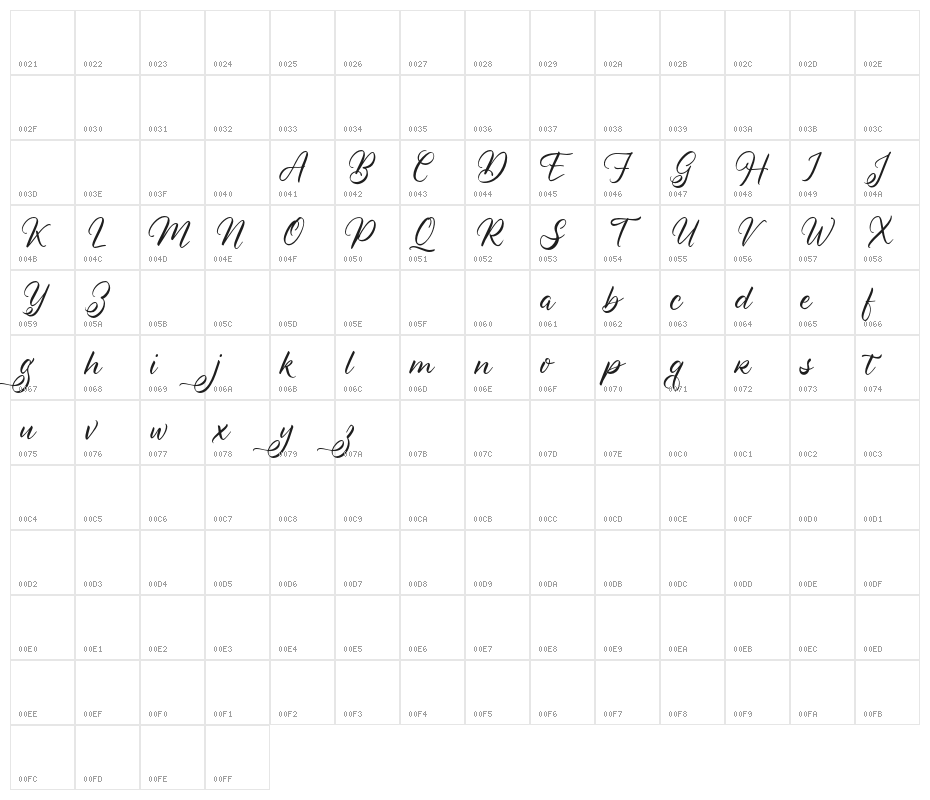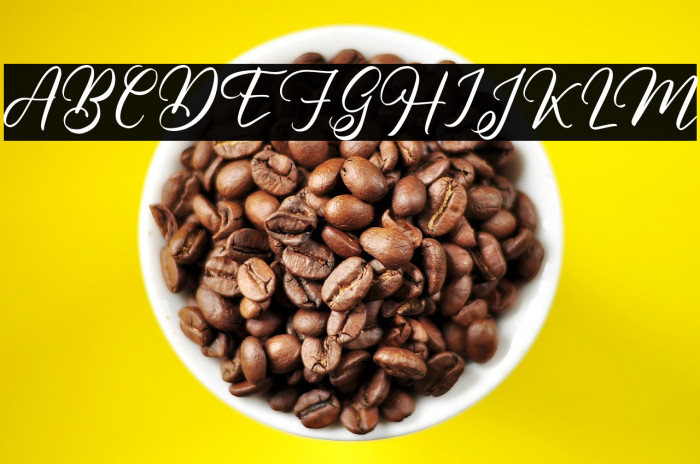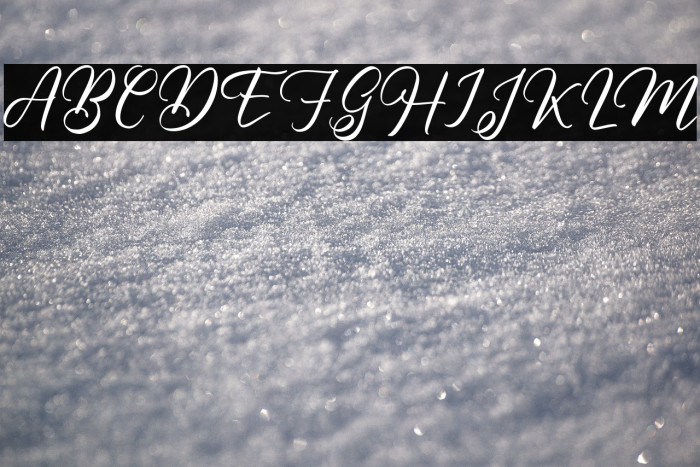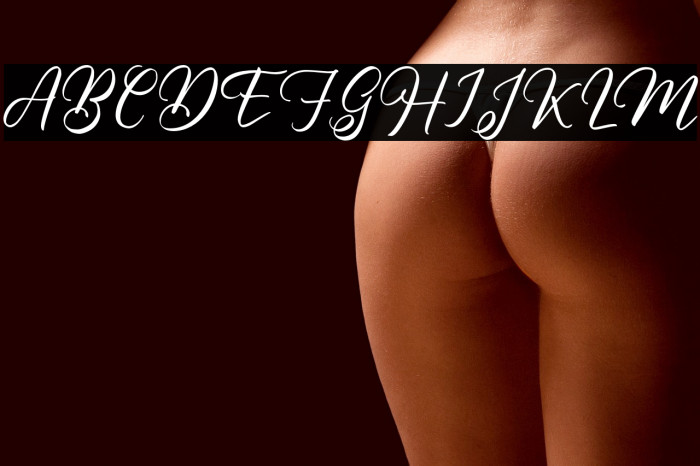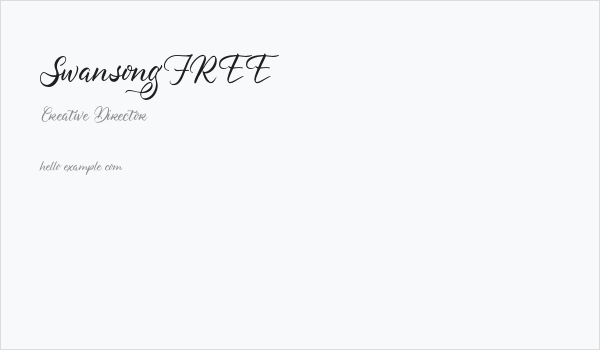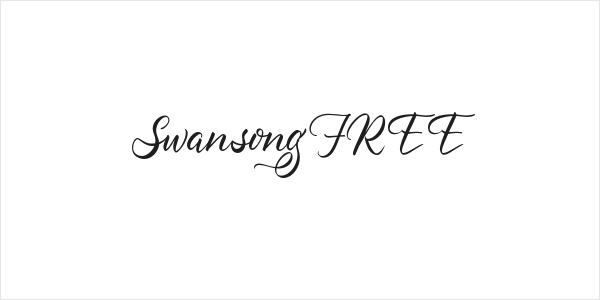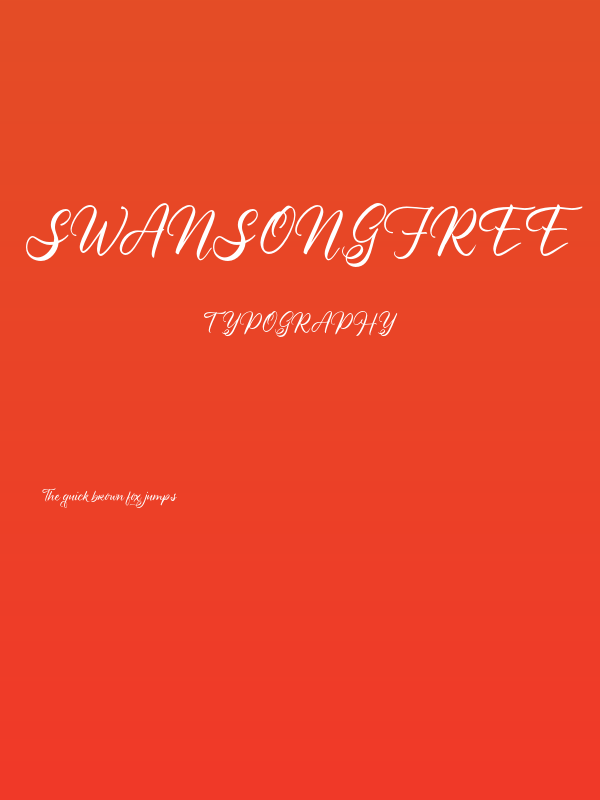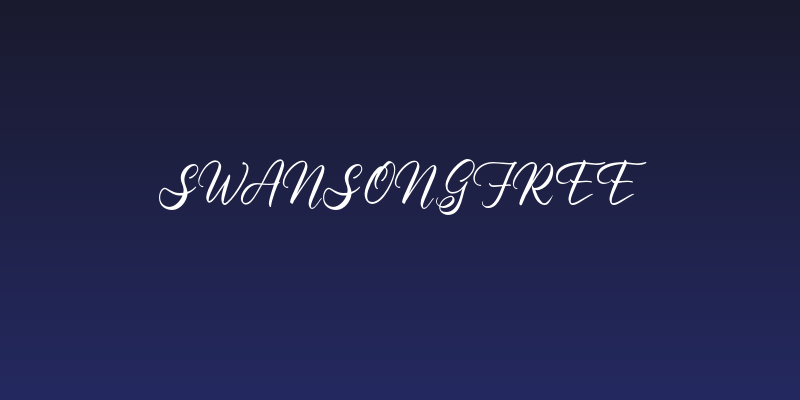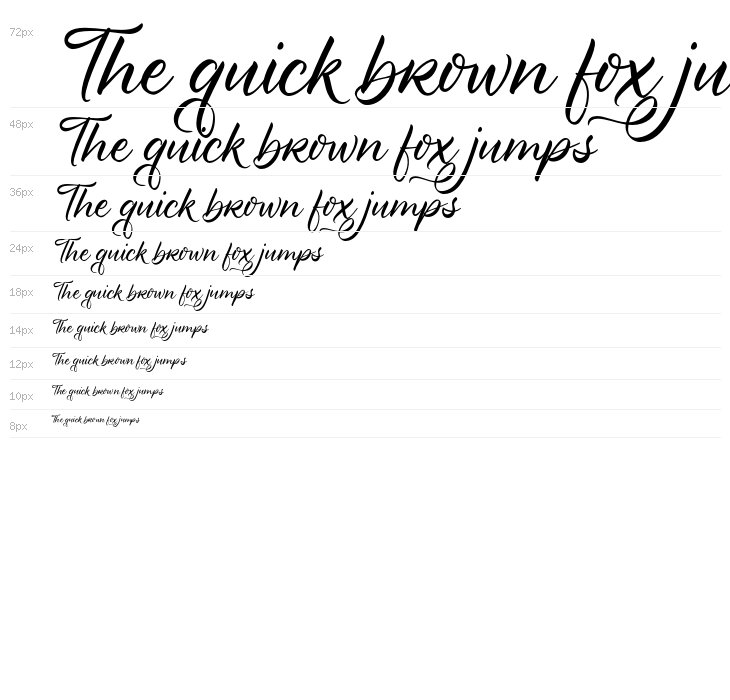
SwansongFREE Font
SwansongFREE Description
This elegant script font features flowing, interconnected characters that exude a sense of sophistication and grace. The uppercase letters are characterized by their sweeping curves and intricate loops, while the lowercase letters maintain a consistent fluidity with delicate flourishes. The font's design is reminiscent of traditional calligraphy, making it ideal for projects that require a touch of elegance and refinement. The characters are well-spaced, ensuring readability while maintaining an artistic flair. This font is perfect for invitations, branding, and any design that seeks to convey a sense of luxury and style.
Overall StyleElegant
Use CaseInvitations, Branding, Artistic designs
Proposed ProjectsIdeal for wedding invitations, luxury branding, elegant stationery, and artistic designs.